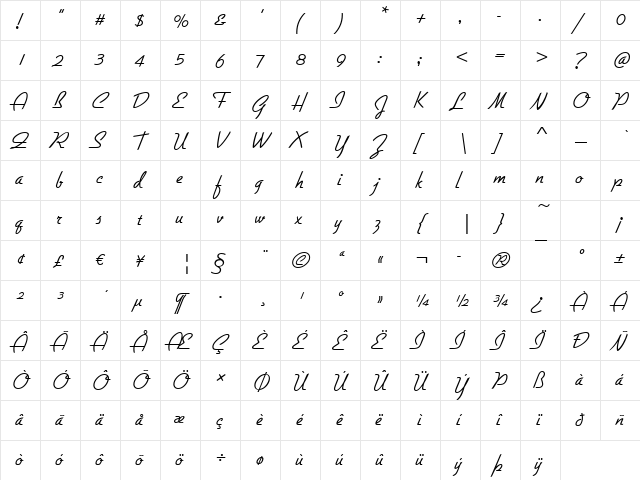
Giulio Regular
Design Context for Giulio Typeface
Giulio is a composed and adaptable typeface that performs quietly and consistently across a wide range of design contexts.